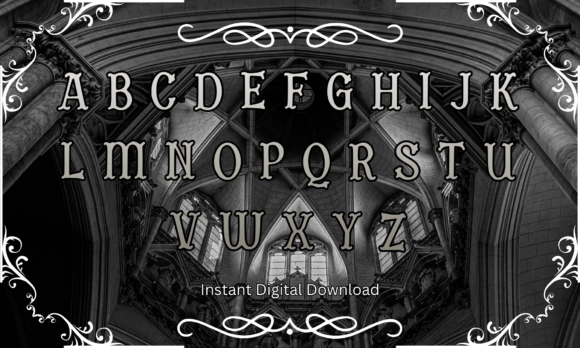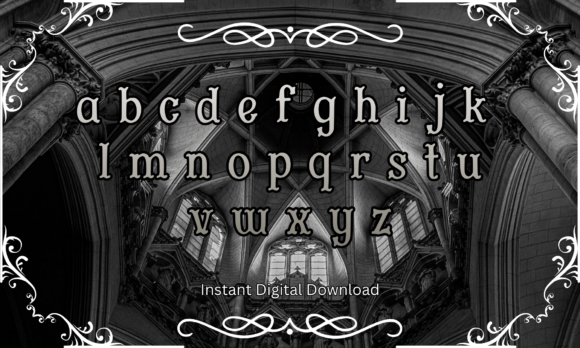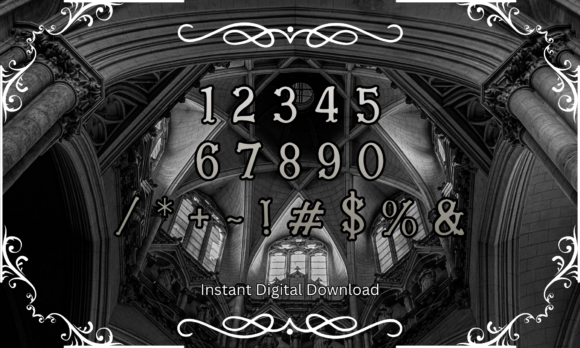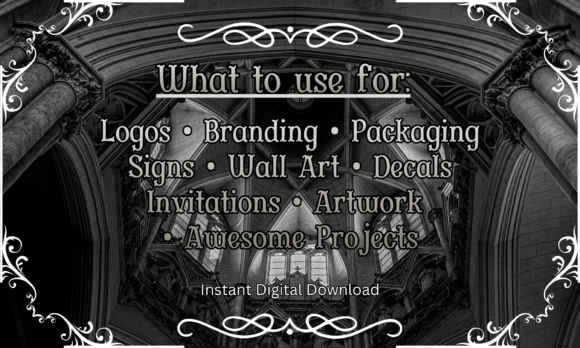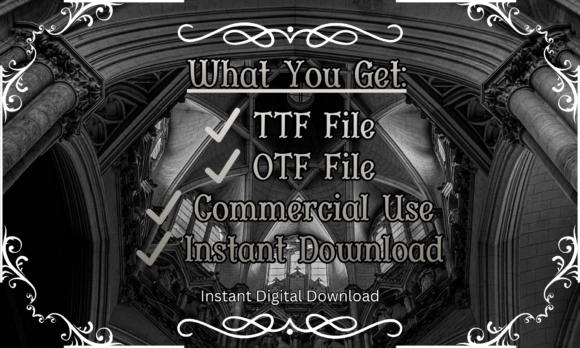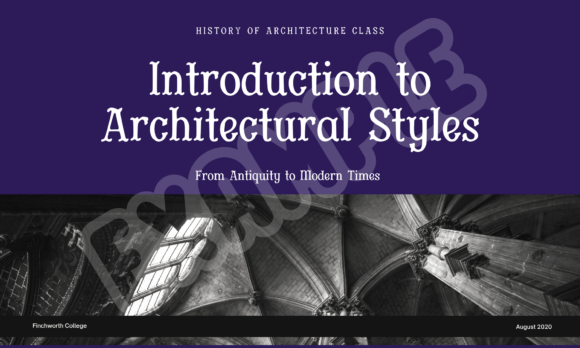
Introduction to Gothic Cathedral Font
As you sit at your desk, surrounded by scraps of paper, design books, and a blank canvas, you’re searching for the perfect font to bring your creative project to life. You’ve tried countless options, but none seem to capture the essence of your vision. That’s when you stumble upon the Gothic Cathedral Font – a stunning, high-quality design resource that will transport your audience to a world of mystery and elegance.
With its intricate details and dramatic arches, this font is inspired by the grandeur of historic cathedrals. Its unique, Gothic aesthetic adds a touch of sophistication and character to any design. Whether you’re working on a gothic-themed project or simply want to add a sense of drama to your creative work, the Gothic Cathedral Font is an invaluable resource for designers. And, with its transparent background and free download option, you can experiment with this font without any limitations.
Get ready to elevate your designs with the Gothic Cathedral Font, a game-changing design resource that’s sure to leave a lasting impression on your audience.
Key Features of Gothic Cathedral Font
- High-quality design with intricate details and ornate patterns, making it perfect for a creative project that requires a touch of elegance and sophistication.
- Features a unique, Gothic-inspired aesthetic with intricate stone carvings and ornate details, adding a touch of historical and architectural flair to any design.
- Perfect for designers working on projects that require a high level of detail and sophistication, such as luxury branding, architectural designs, and historical recreations.
Honest Review: Gothic Cathedral Font
As a designer, I’m always on the lookout for unique and high-quality fonts to elevate my creative projects. The Gothic Cathedral Font caught my eye with its stunning architecture-inspired design.
What works well with this font is its versatility ✨. I’ve used it in a variety of projects, from posters to business cards, and it always adds a touch of elegance and sophistication. The font is also highly legible, making it perfect for body text or headings.
Here are some of the key features that make this font a great design resource:
- High-quality design with intricate details
One of the limitations of this font is that it can be quite heavy, which may not be suitable for all projects ⚠️. Additionally, the font’s size can be quite large, which may make it difficult to use in smaller design elements.
Overall, I’m really impressed with the Gothic Cathedral Font. It’s a great addition to any designer’s toolkit and is perfect for anyone looking to add a touch of Gothic elegance to their creative projects.
Gothic Cathedral Font
Tips for Getting the Most Out of the Gothic Cathedral Font
For optimal results, use the Gothic Cathedral Font on a transparent background to create a sense of depth and dimension. Experiment with different font sizes and styles to add emphasis and visual interest to your design. This font is a valuable design resource for any creative project.
The Gothic Cathedral Font is commonly used in designs that require a sense of grandeur and sophistication, such as wedding invitations, luxury branding, and high-end packaging. Its intricate details and high-quality design make it a popular choice among designers and artists.